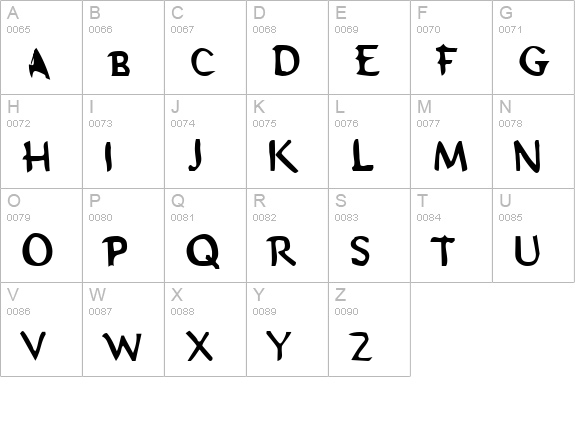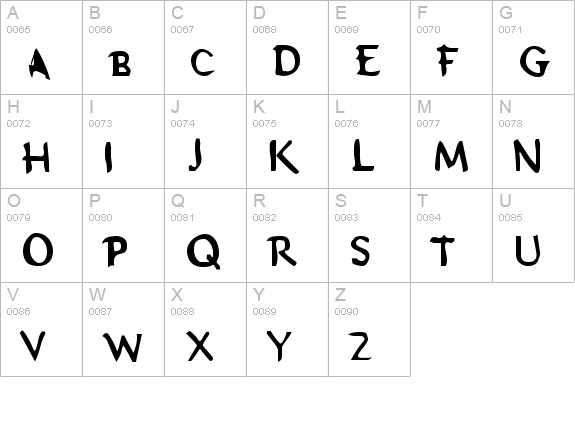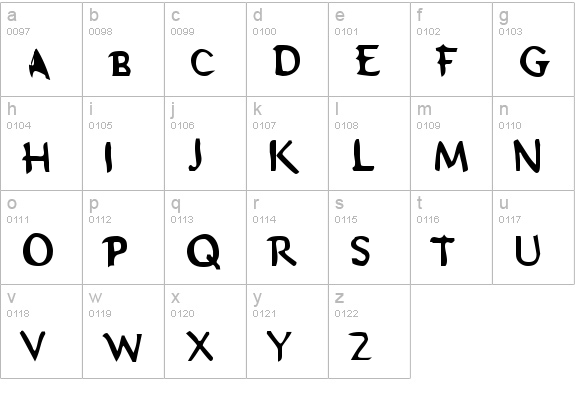
Schooldaze Font Details
Introducing Schooldaze Font - a playful and nostalgic typeface that brings back memories of youthful exuberance and carefree days spent in the classroom. This delightful font is inspired by the charming handwriting styles found on old-school chalkboards, perfectly capturing the essence of a bygone era. Schooldaze Font features a whimsical yet legible design, with slightly uneven strokes and rounded edges that add a sense of character and warmth to your projects. Whether you're creating invitations for a school-themed party, designing a poster for an educational event, or adding a touch of nostalgia to your branding materials, this font is sure to bring a smile to your audience's faces. One of the best things about Schooldaze Font is that it is absolutely free! Yes, you read that right. This amazing font can be freely downloaded at FontsMarket.com, your one-stop destination for high-quality and unique fonts. With just a few clicks, you can add this charming typeface to your font collection and start using it in your projects right away. Not only does Schooldaze Font offer a delightful aesthetic, but it is also highly versatile. It comes with a full set of uppercase and lowercase letters, numerals, punctuation marks, and special characters, allowing you to create beautifully cohesive designs. The font is also available in multiple formats, including TrueType, OpenType, and Webfont, ensuring compatibility across various design software and platforms. So, why wait? Add a touch of nostalgia and playfulness to your designs with Schooldaze Font. Download it for free at FontsMarket.com and let your creativity soar. Whether you're a designer, a student, or simply someone who appreciates the beauty of handcrafted typography, Schooldaze Font is a must-have addition to your font library. Don't miss out on this opportunity to bring a piece of the past into your present creations.